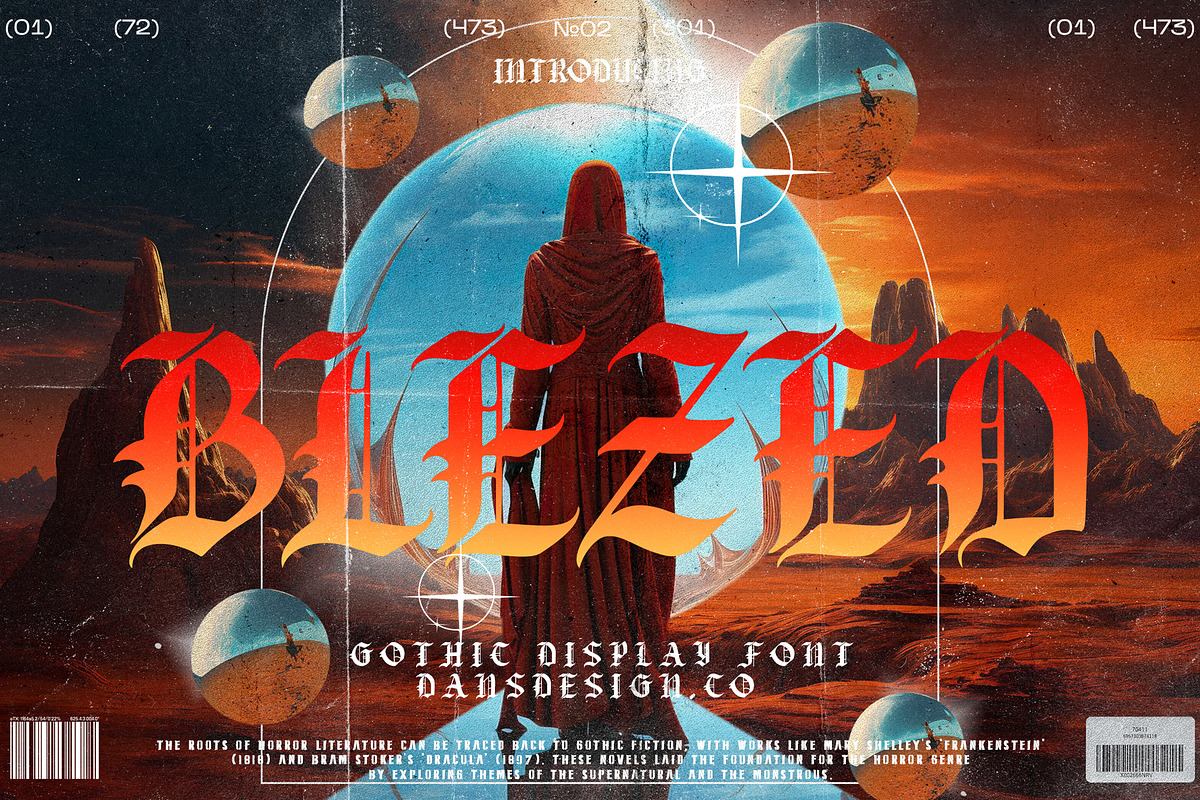
BLEZED Blackletters Gothic Display Font Free Download is a fierce and dramatic typeface rooted in traditional blackletter style with a bold, modern twist. Featuring sharp edges, ornate strokes, and medieval-inspired letterforms, this font is perfect for heavy metal designs, tattoo branding, gothic merchandise, vintage labels, and editorial headlines that demand intensity and impact.
Whether you're crafting a band logo, dark fantasy book cover, or streetwear design, BLEZED Blackletters Gothic Display Font Free Download delivers strong personality and unmistakable presence. It’s designed for standout titles and display use where every letter feels like a statement.
Unleash powerful gothic energy in your designs with BLEZED Blackletters Gothic Display Font Free Download—a must-have for creatives who crave bold, rebellious, and historically rich typography.